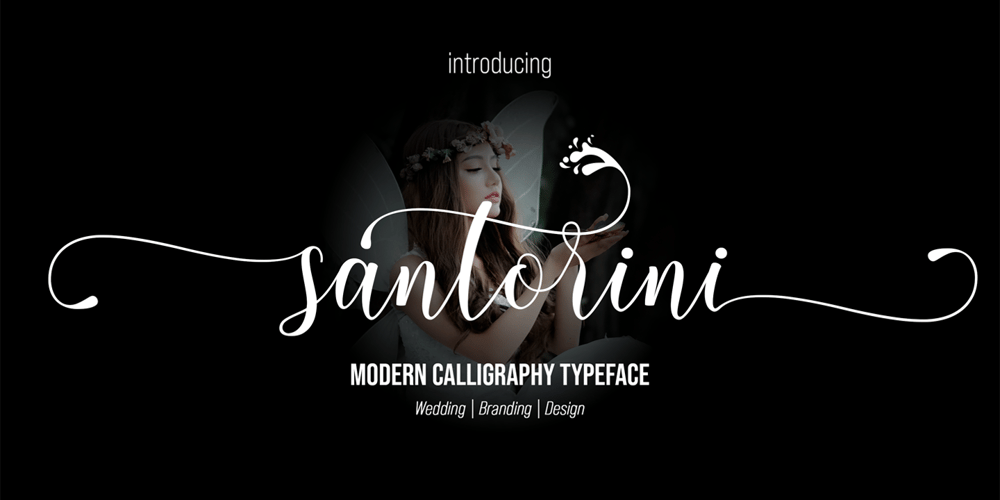
Santorini Font Family was designed by Muhammad Rizal and published by MrLetters. Santorini contains 1 styles and family package options. Santorini Script is a modern calligraphy font with the current handwriting style, this font is perfect for branding, wedding invites, magazines, mugs, business cards, quotes, posters, and more, you can try first if you want to buy this font.Santorini Script is equipped with 299 glyphs. and by having many of these glyphs there will be able to choose the letters according to your likes, lots of variations and options for each letter, so you can customize on your design choices.to use a variety of flying machines, you need a program that supports OpenType features such as Adobe Photoshop Cs / Adobe Photoshop CC, Adobe Illustrator CS / Adobe Illustrator CC, Adobe Indesign and Corel Draw and many more programs that support OpenType.If you do not have a program that supports OpenType, you can access all the alternate glyphs using Font Book (Mac) or Character Map (Windows)Thanks and happy designing :-)Thank You for purchase!